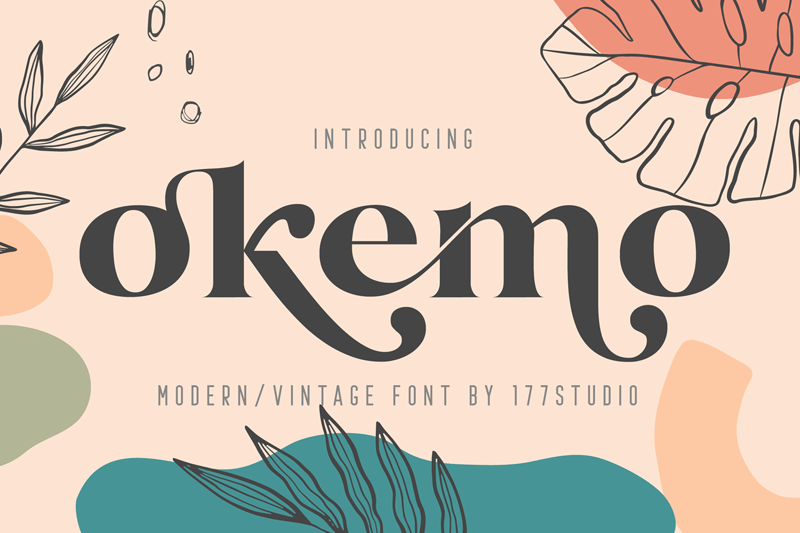
Font name: | Okemo |
Okemo � Modern Serif Font is a stylish font that is both retro and bold font. a new retro serif font! Okemo Font includes a full set of lowercase and uppercase alternates for each letter, plus some extra ending letters, and a bunch of special ligatures. To make it look more unique, here we prepared some ligatures: La Ka Ei El Ki ST SF OF OT Th th ti tj ft fj fh fl fk vj wj ra rj cl ck ay at az lg gh tt tr hg dg jg mg ng oh op ok ol si sj gj az ch cm cn eh en em jt it gi va wa ya yi yj Using Fonts with Access Opentype Feature in Any Software: https://177studio.com/using-fonts-with-access-opentype-feature-in-any-software/ NOTE: This demo font is for PERSONAL USE ONLY! and NO COMMERCIAL USE ALLOWED. If you make money with my font please purchase the license to: https://177studio.com/product/okemo-modern-serif-font/ or https://gumroad.com/l/yNDxJ Thank you for download and your appreciated. Keep Support our work and Happy Design !! if you have any problem, let we know by email: admin@177studio.com |